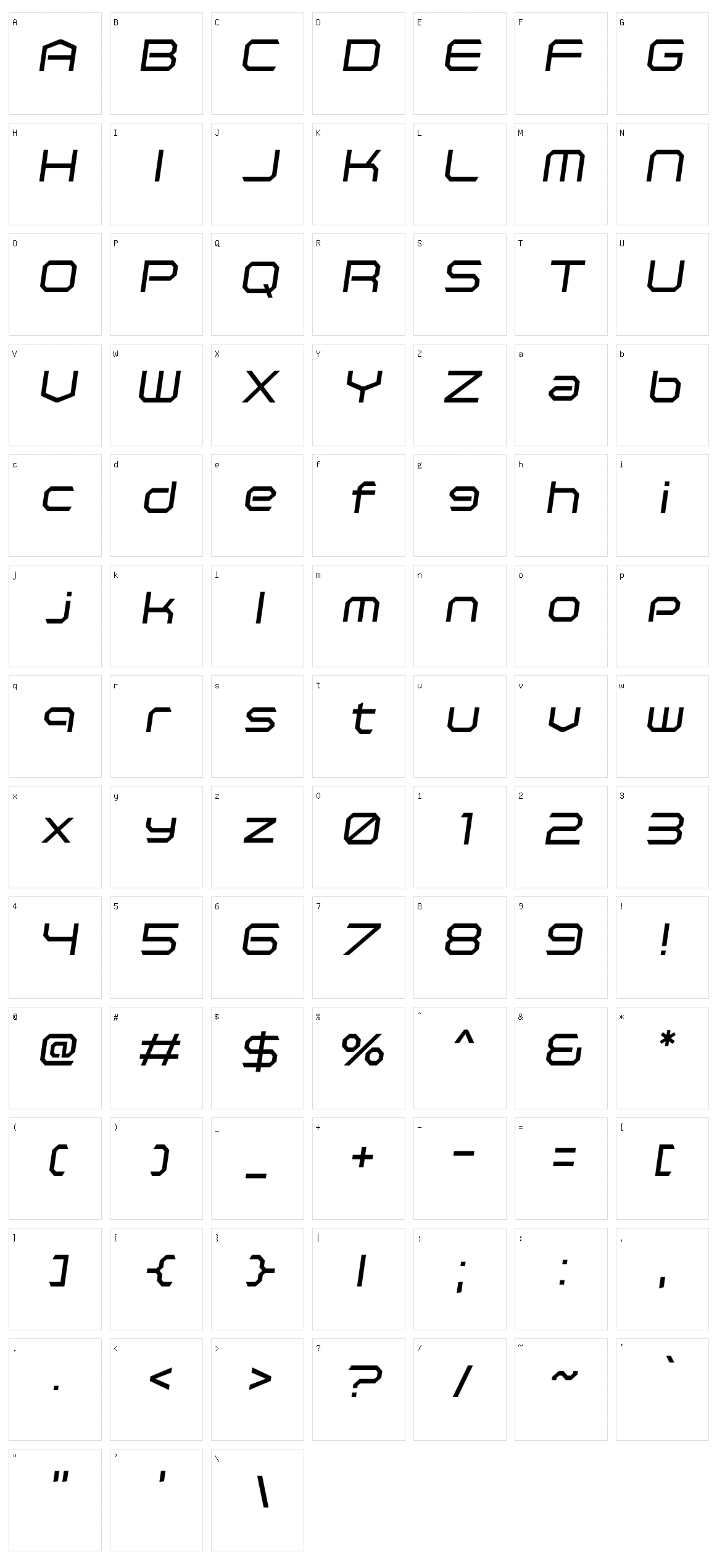
The free font Polentical Neon is carefully designed by Jayvee Enaguas, showcasing a thoughtful balance of creativity and usability and falls under the Square font style. When you download the ZIP file, it contains only 38.85 KB of font files, making it lightweight and quick to download. Please review the license details below to understand permitted usage and distribution rights. If license information is not available, we recommend using this font for personal projects only or contacting the author directly for commercial usage permissions.